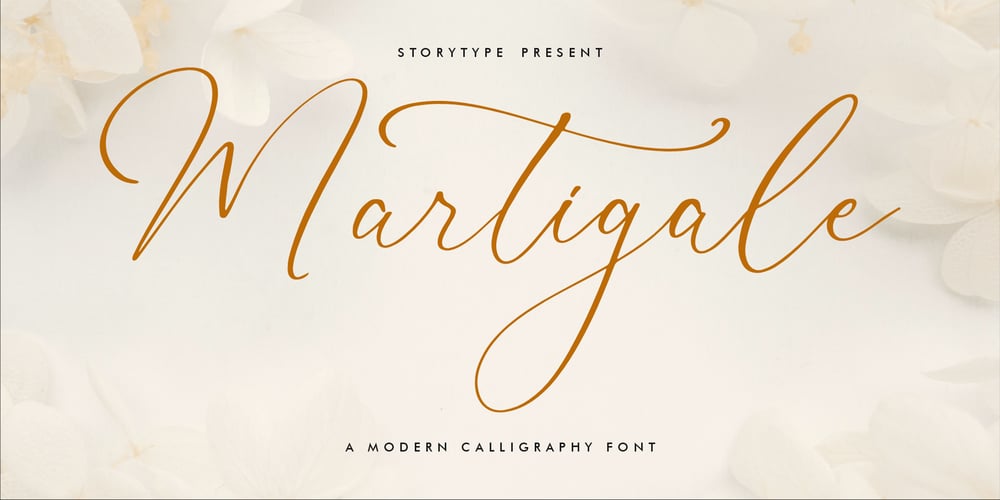
Martigale Font Family was designed by Heru Utama Putra and published by Letterena Studios. Martigale contains 2 styles and family package options. Martigale is a delicate and elegant handwritten font. Its distinct and well-balanced letters make this font a masterpiece. Fall in love with its incredibly versatile style and use it to create spectacular designs!